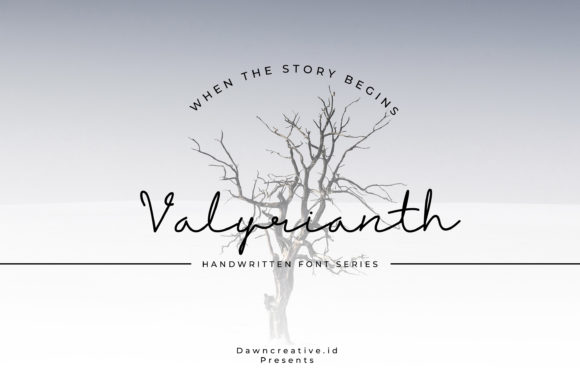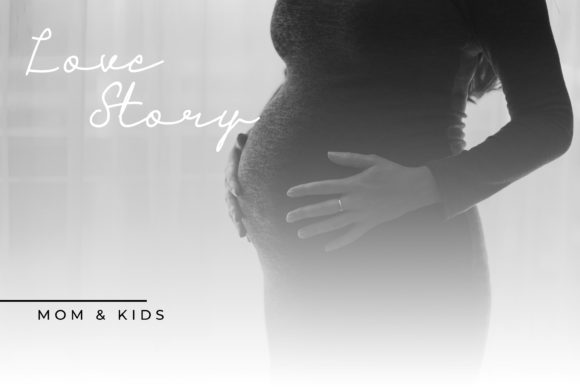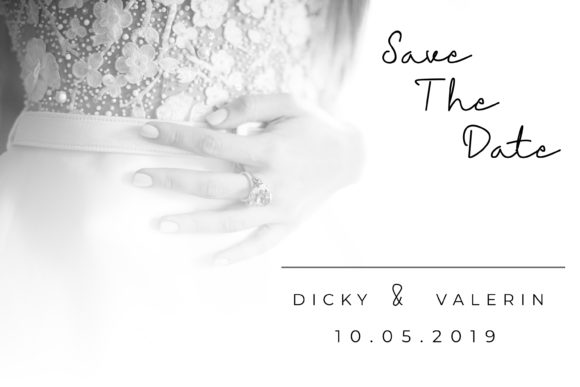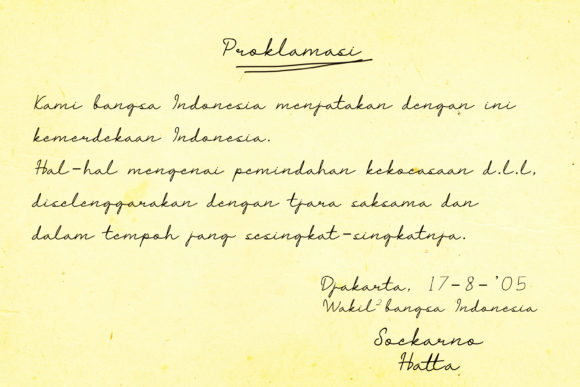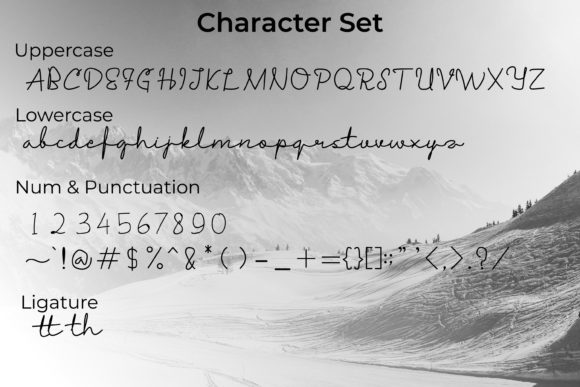
Valyrianth Font
About Valyrianth Font
Valyrianth is a beautiful and authentic handwritten font with a unique feel. It will add a personal touch to any design project!